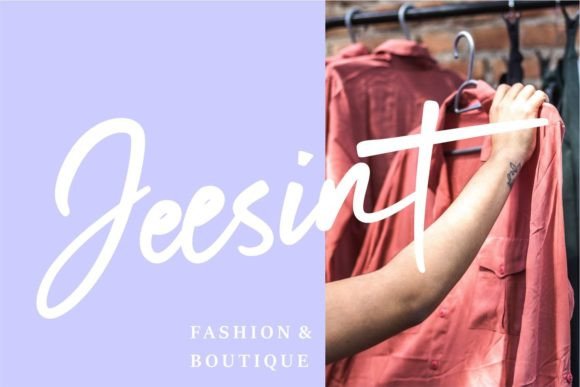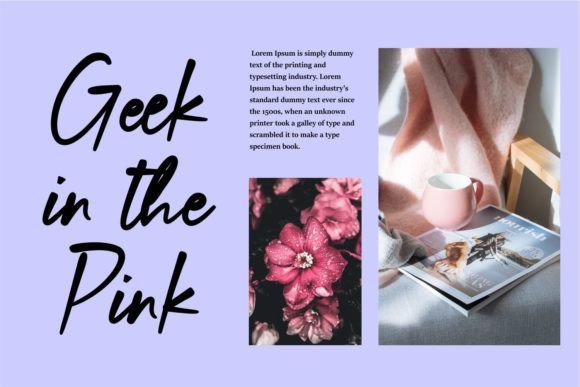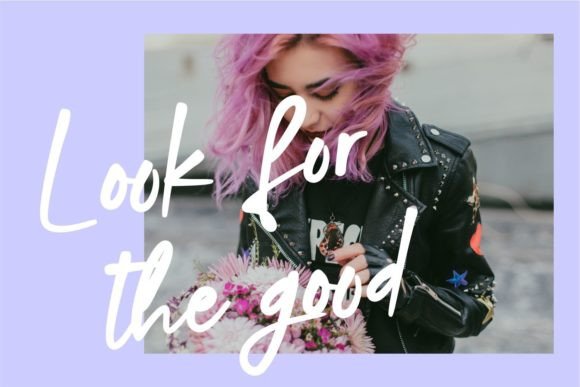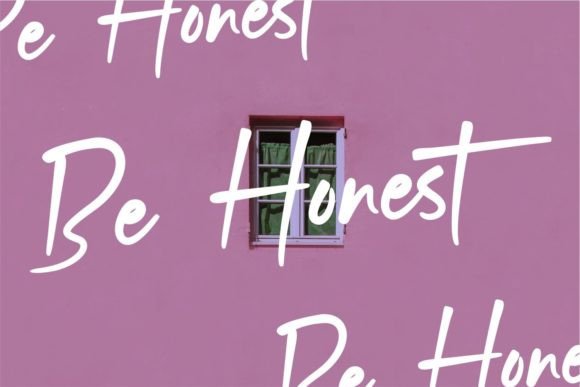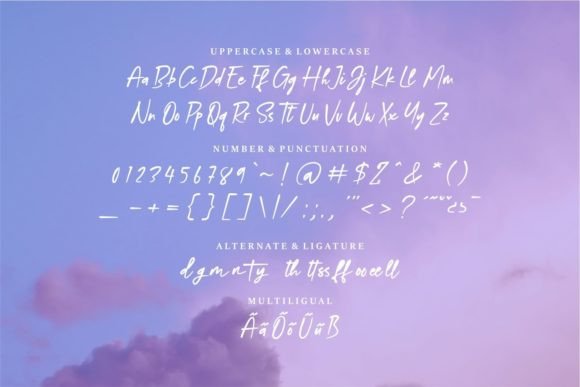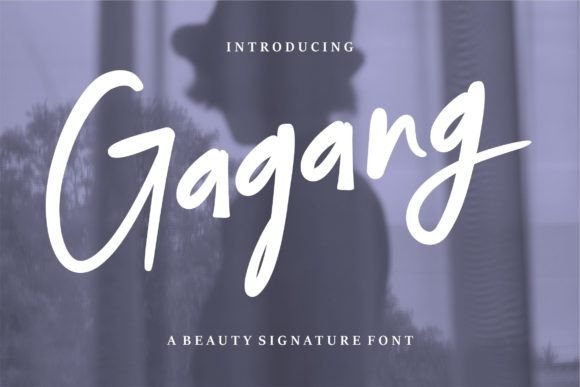
Introducing Gagang Font: Elevate Your Designs with Style and Sophistication
In the world of design, typography plays a crucial role in conveying the tone and aesthetic of a project. A well-chosen font can elevate your designs, making them more engaging, professional, and memorable. If you’re looking for a stylish and modern script font that can add a touch of sophistication to your work, look no further than Gagang Font. In this article, we’ll explore the features and benefits of Gagang Font, and why it’s the perfect choice for designers and crafters seeking to create high-end designs.
A Modern Script Font with a Contemporary Feel
Gagang Font is a beautifully crafted script font that boasts clean lines, elegant curves, and a contemporary feel. Each letter is thoughtfully designed to create a refined and sophisticated look that’s perfect for designs that require a touch of luxury and professionalism. Whether you’re working on wedding invitations, branding materials, or any other project that demands high-end quality, Gagang Font is the ideal choice.
One of the standout features of Gagang Font is its versatility. Its modern script style makes it suitable for a wide range of design applications, from formal events to corporate branding. The font’s clean lines and simple curves ensure that it remains legible even at small sizes, making it perfect for use in body text or captions.
PUA Encoded for Easy Access to Glyphs and Swashes
Gagang Font is PUA (Private Use Area) encoded, which means that you can access all the delightful glyphs and swashes effortlessly. This encoding allows you to easily insert special characters, such as ligatures, ornaments, and flourishes, into your designs, giving them an extra touch of elegance and sophistication.
With Gagang Font, you can easily create beautiful, one-of-a-kind designs that showcase your creativity and attention to detail. The font’s PUA encoding makes it easy to use, even for designers who are new to working with script fonts.
Gagang Font is perfect for designers and crafters working on a variety of projects, including:
- Wedding invitations and stationery: Add a touch of elegance and sophistication to your wedding designs with Gagang Font’s beautiful script style.
- Branding materials: Create professional and memorable brand identities with Gagang Font’s modern and refined look.
- Signage and display text: Use Gagang Font to create eye-catching signage and display text that’s sure to grab attention.
- Packaging and product design: Add a touch of luxury and sophistication to your packaging and product designs with Gagang Font.
Why Choose Gagang Font?
So why choose Gagang Font for your design projects? Here are just a few reasons:
- Unique and stylish design: Gagang Font boasts a unique and stylish design that’s sure to elevate your designs.
- High-end quality: With its clean lines and sophisticated look, Gagang Font is perfect for designs that require a touch of luxury and professionalism.
- Easy to use: Gagang Font is PUA encoded, making it easy to access all the glyphs and swashes you need to create beautiful designs.
- Versatile: Gagang Font is suitable for a wide range of design applications, from formal events to corporate branding.
In conclusion, Gagang Font is a stylish and modern script font that’s perfect for designers and crafters seeking to create high-end designs. With its clean lines, elegant curves, and contemporary feel, Gagang Font is sure to elevate your designs and add a touch of sophistication. Its PUA encoding makes it easy to use, and its versatility ensures that it’s suitable for a wide range of design applications. Whether you’re working on wedding invitations, branding materials, or any other project that demands high-end quality, Gagang Font is the ideal choice.